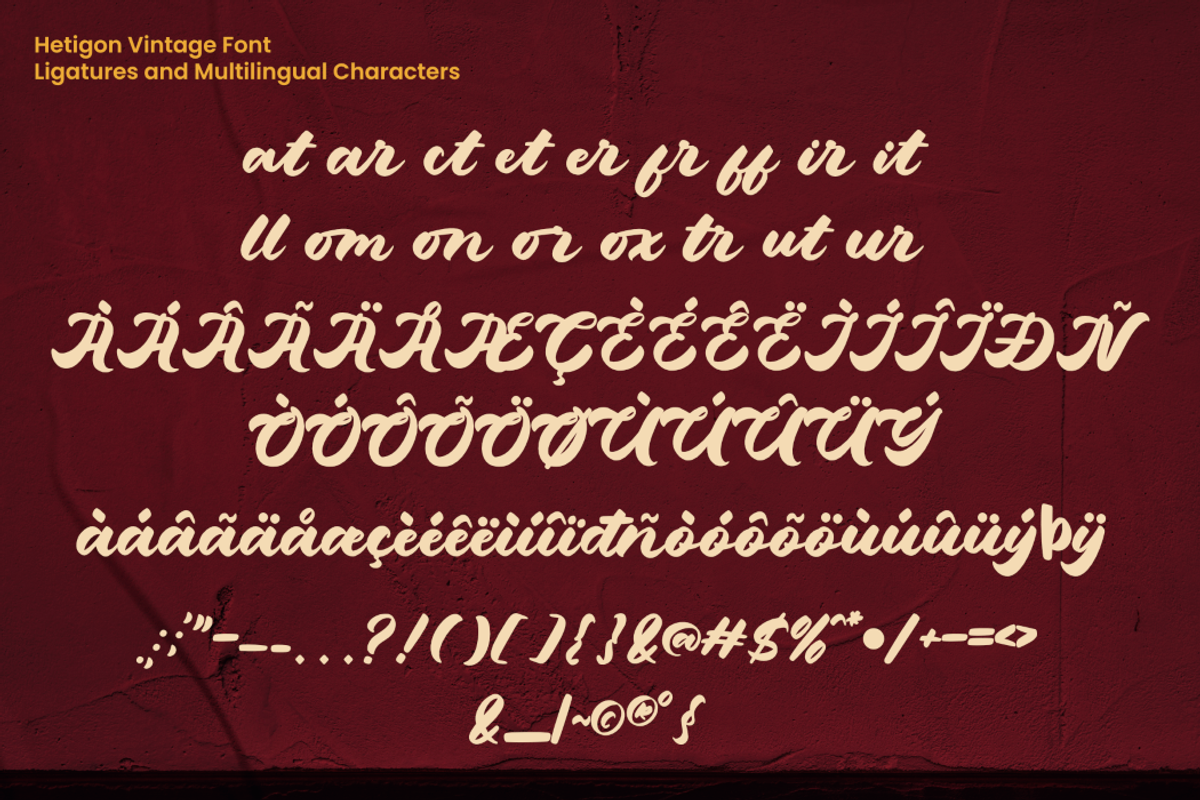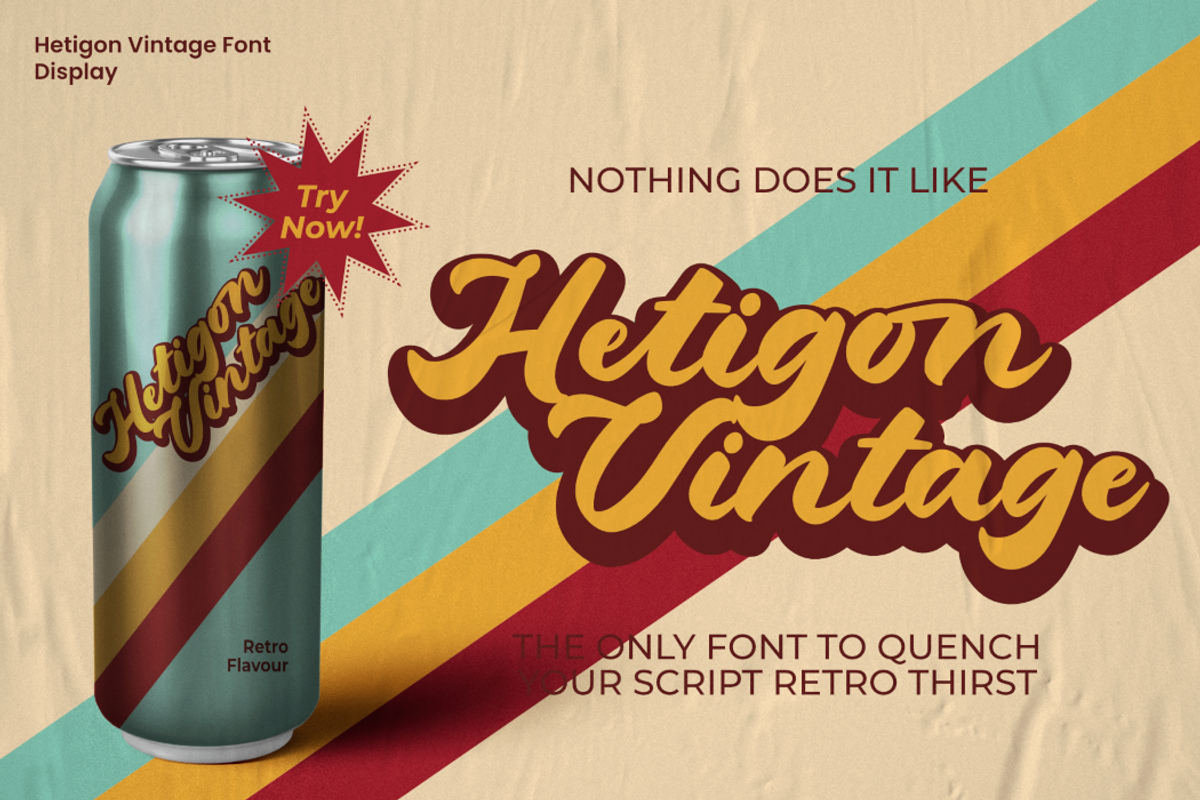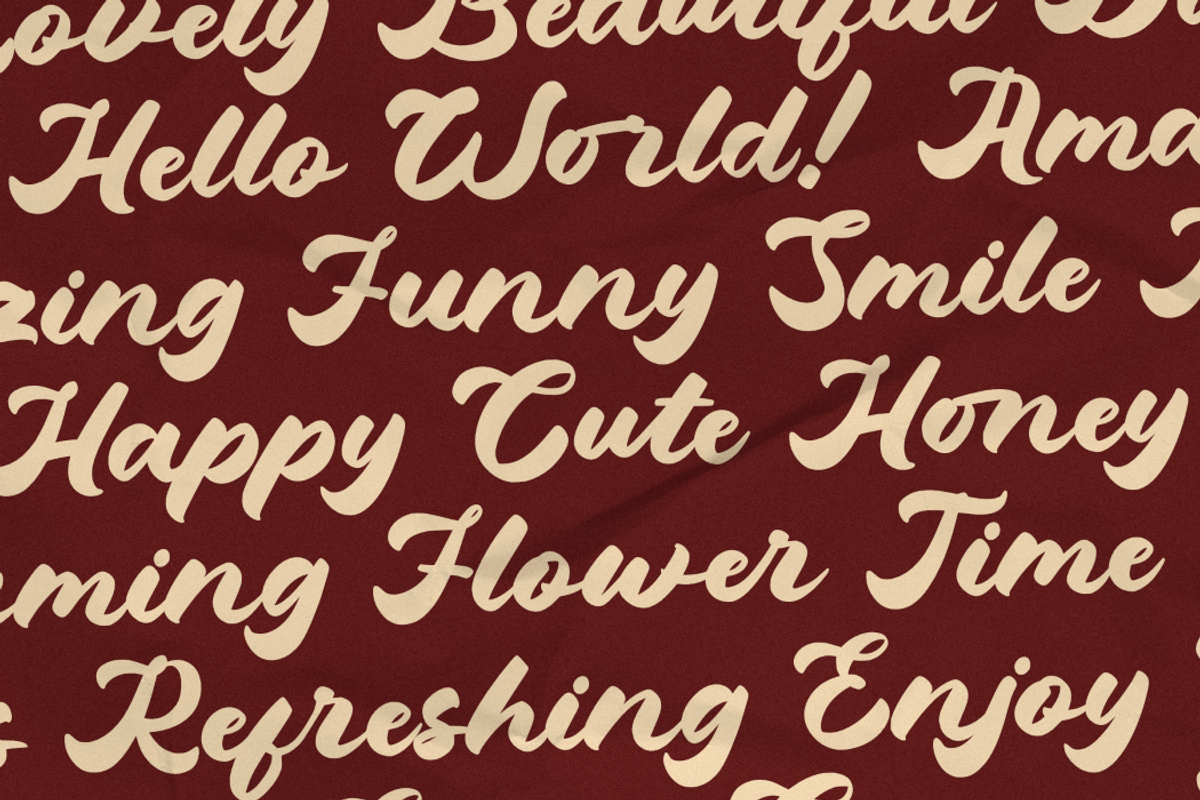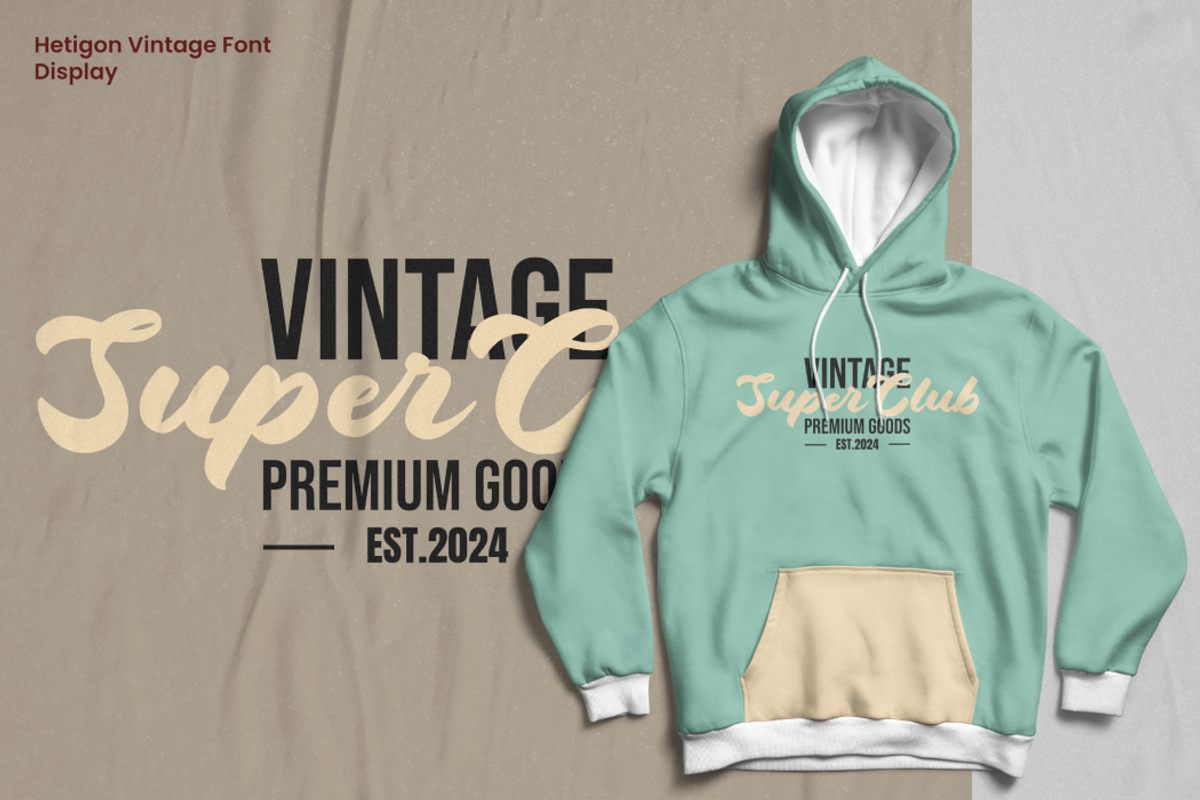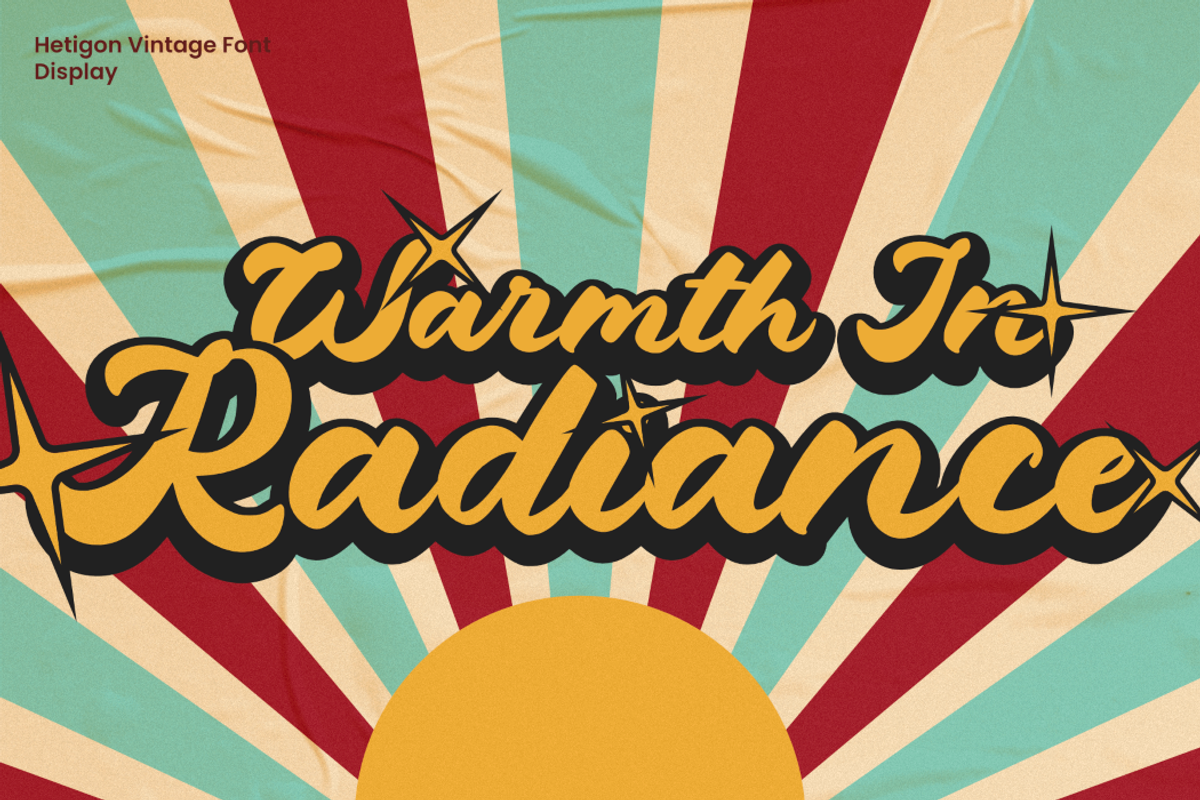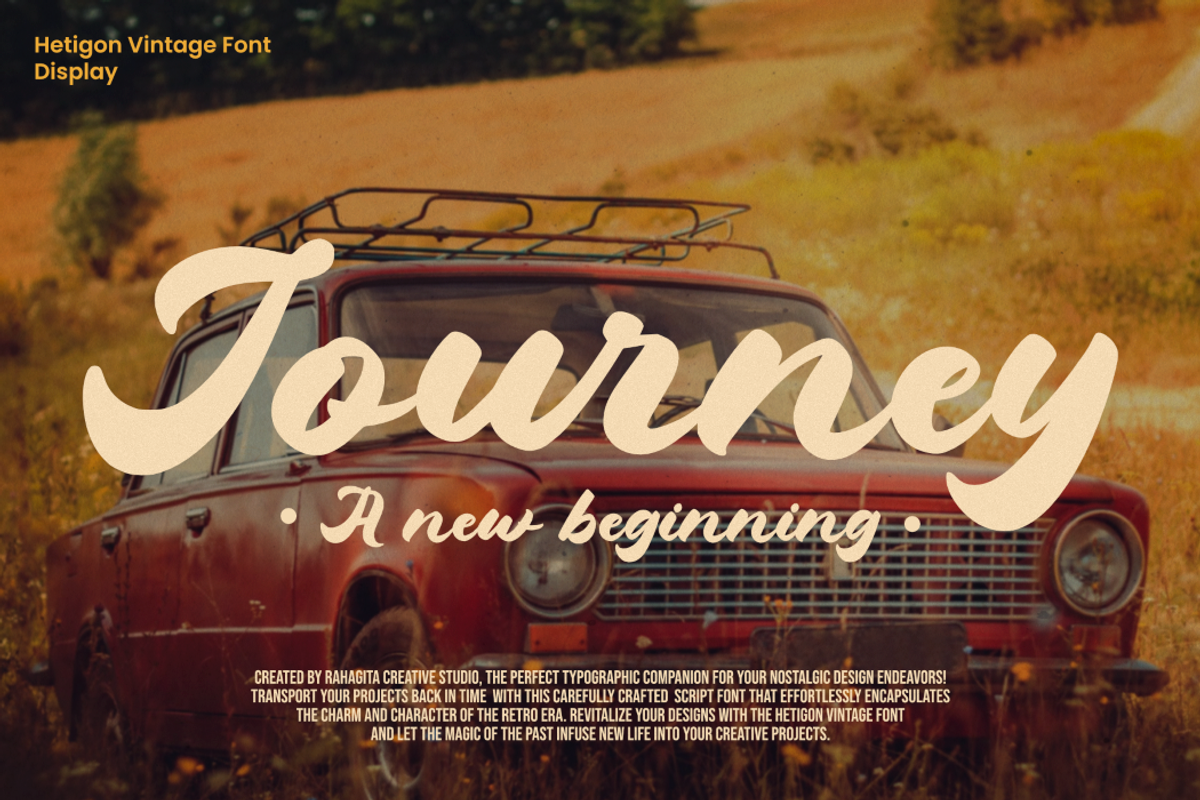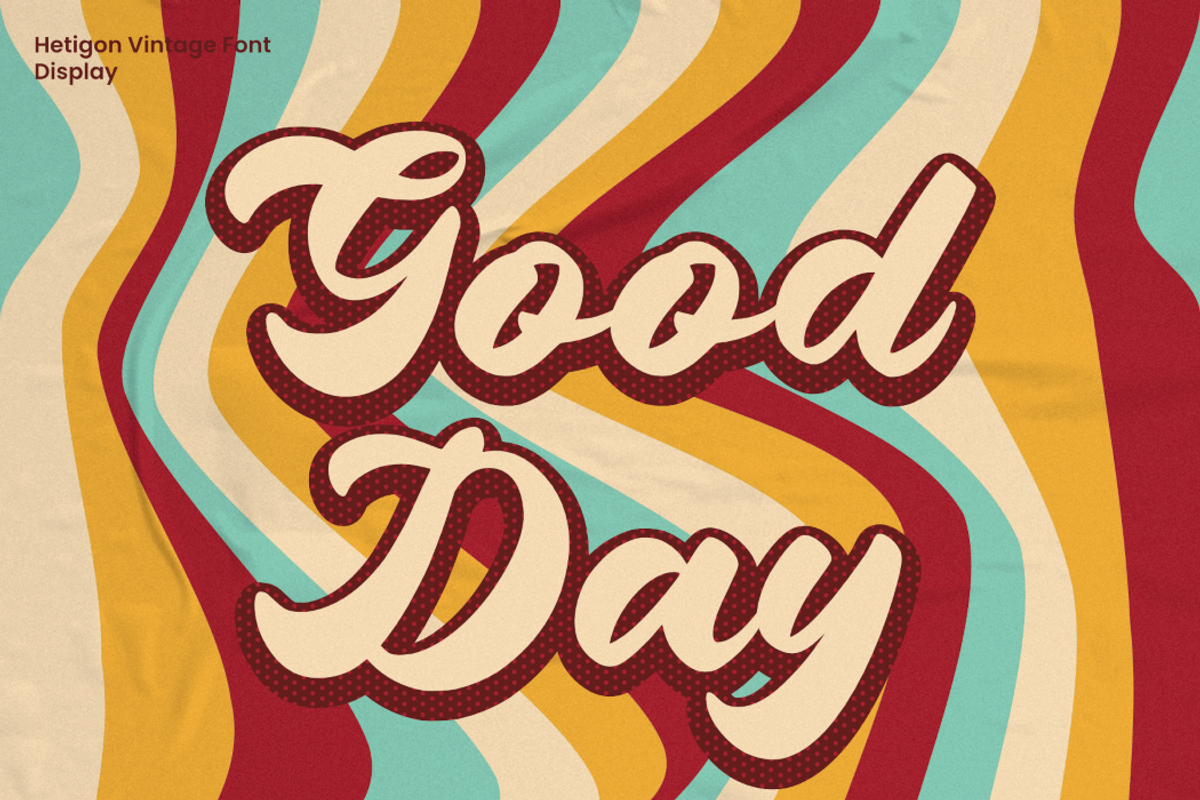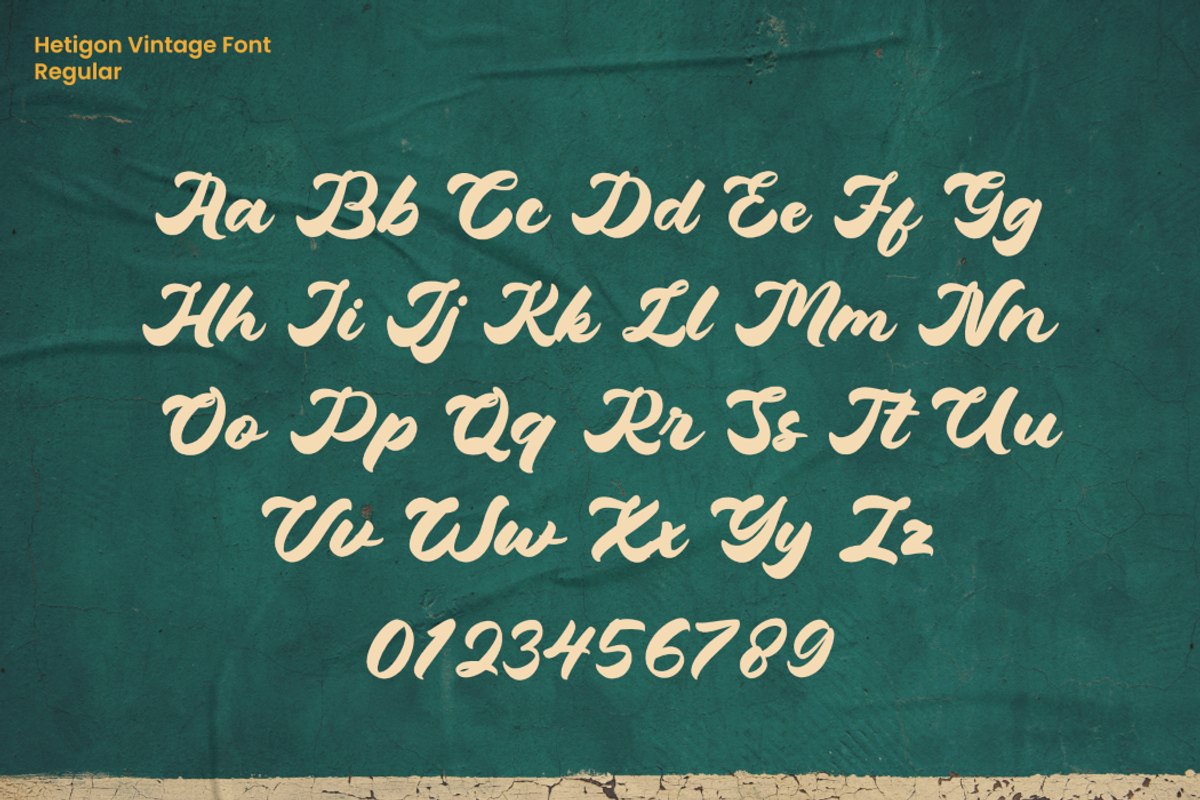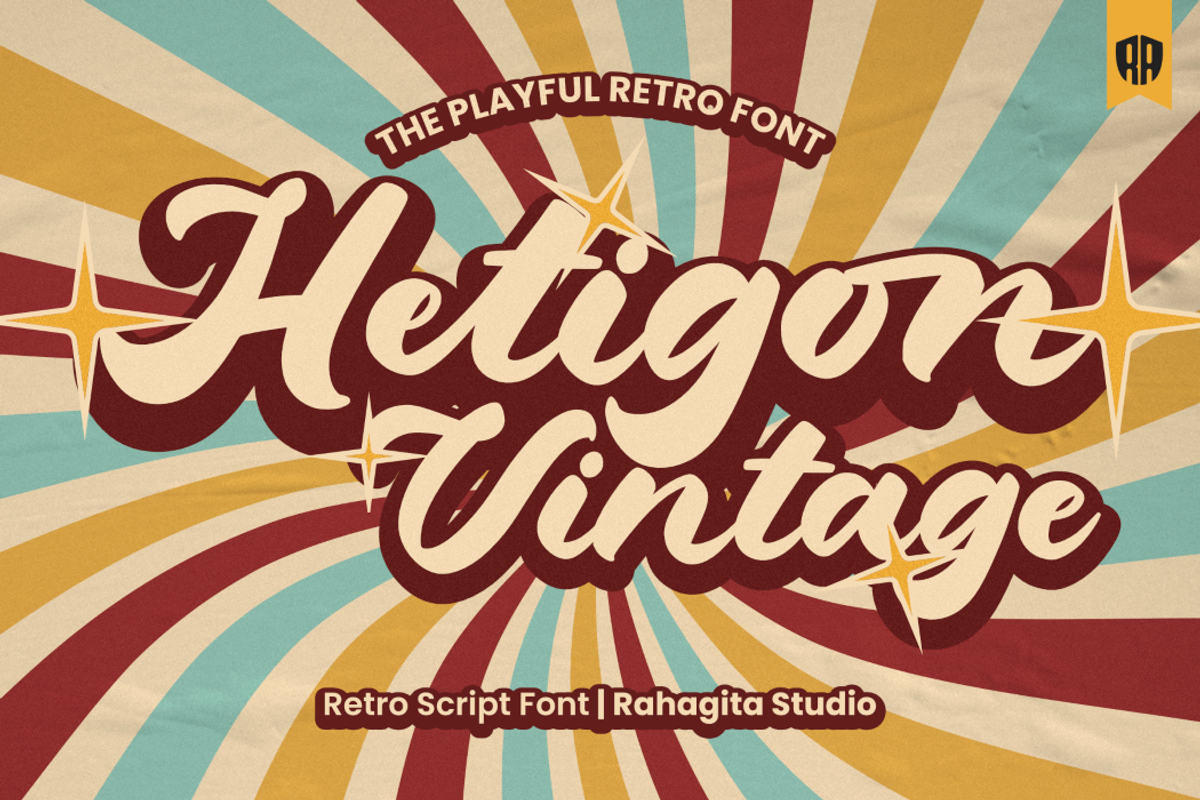
Hetigon Vintage
Hetigon Vintage is a bold and captivating font that seamlessly blends vintage charm with a playful twist. Its distinctive character lies in its ability to evoke a sense of nostalgia while maintaining a contemporary and dynamic feel. This versatile typeface is suitable for branding, logotypes, and flyers, where it effortlessly injects personality and style.